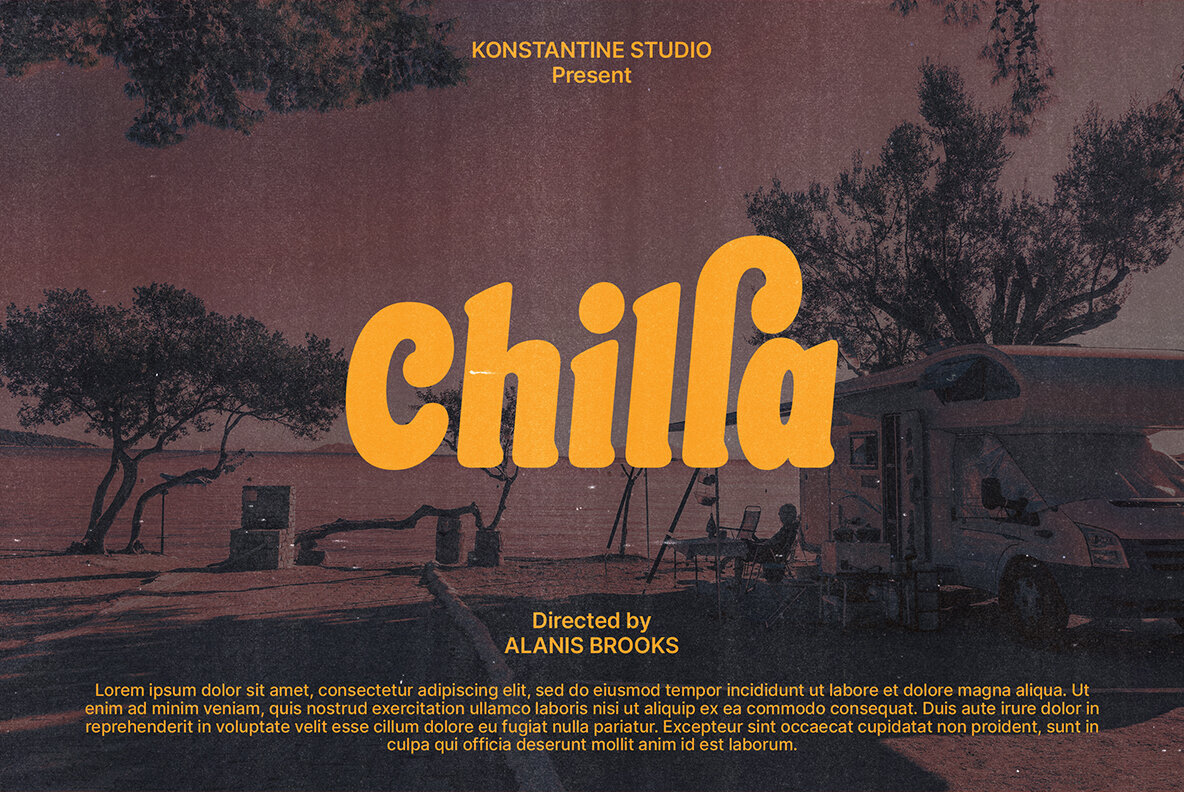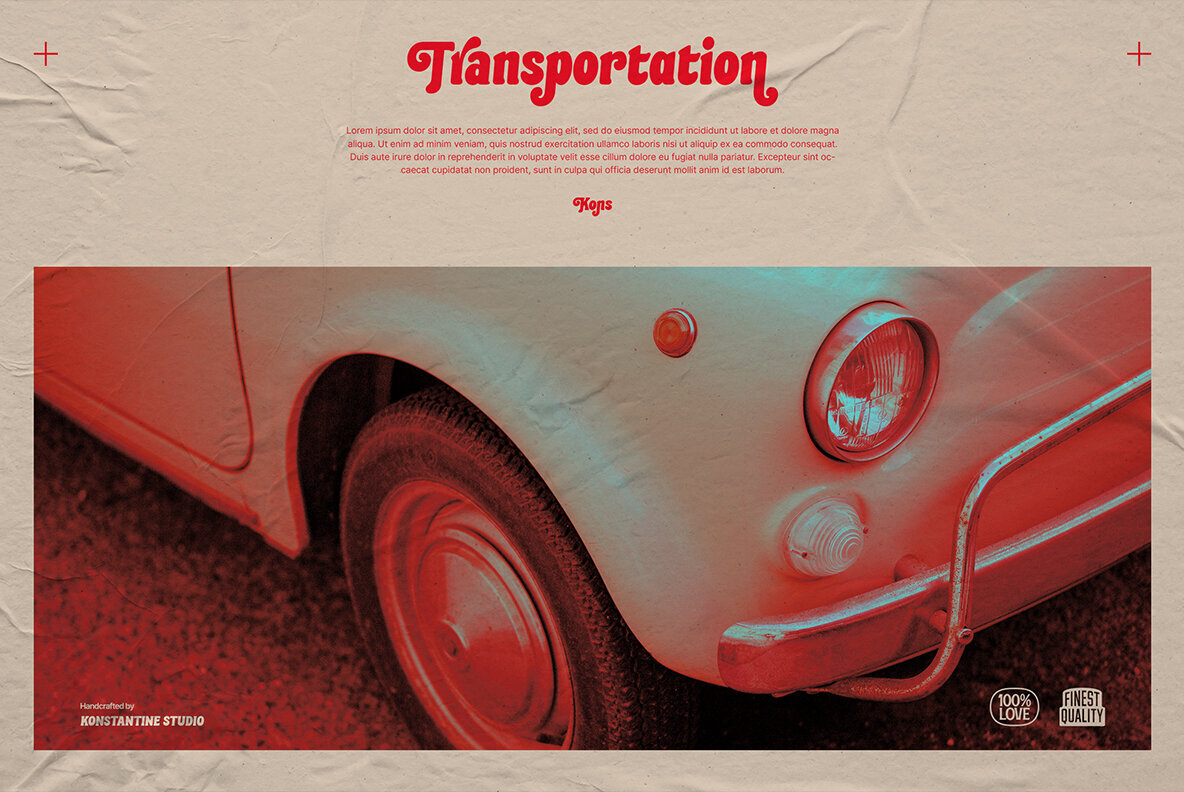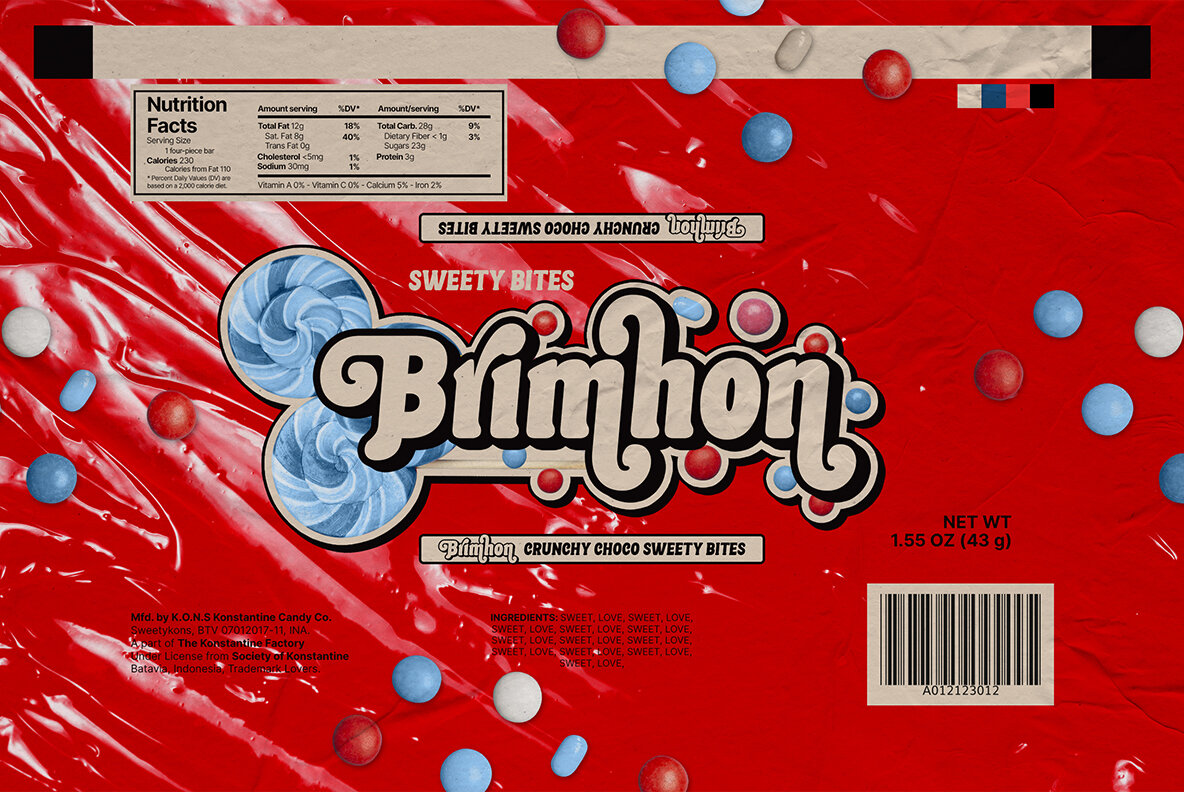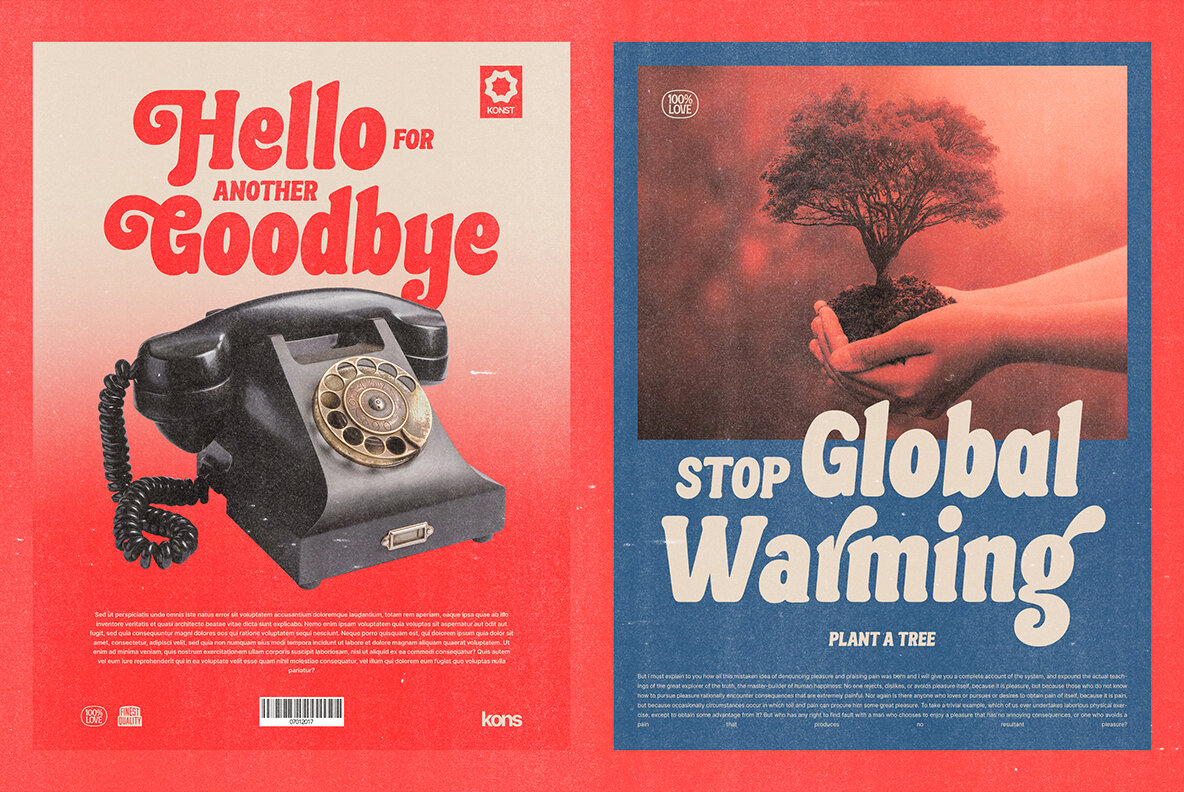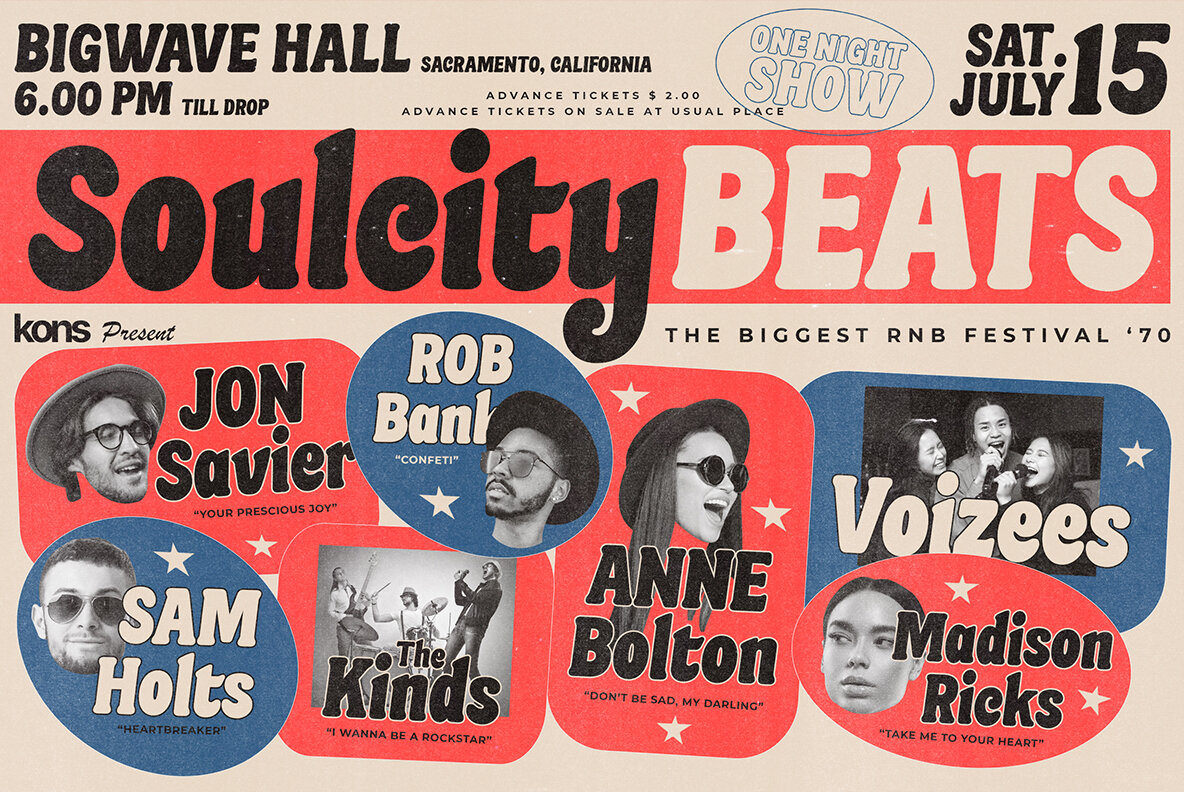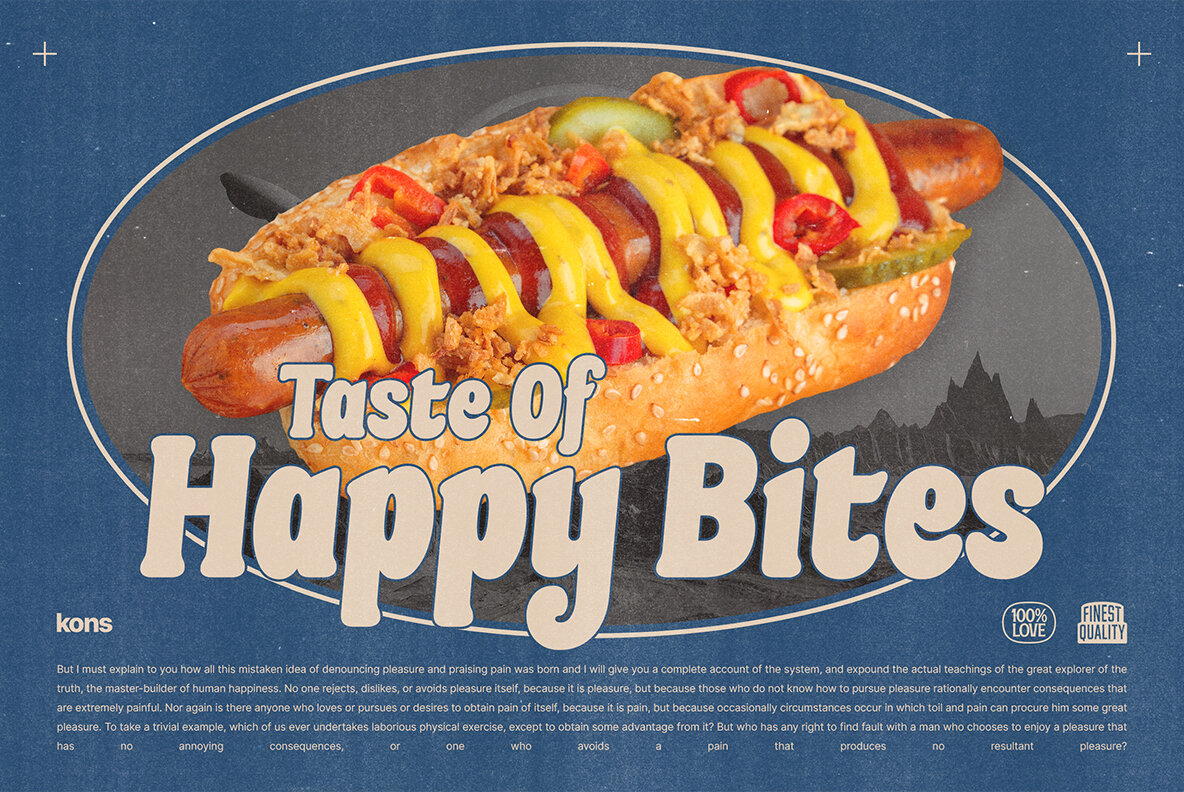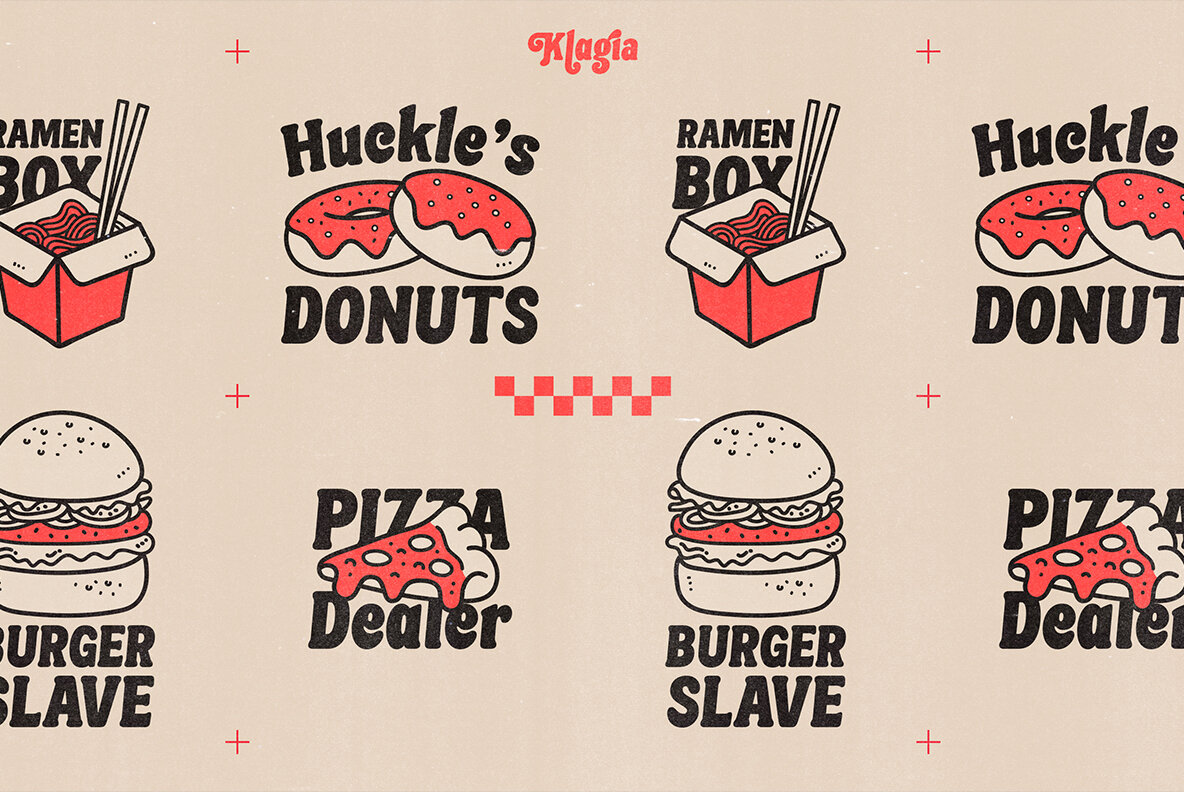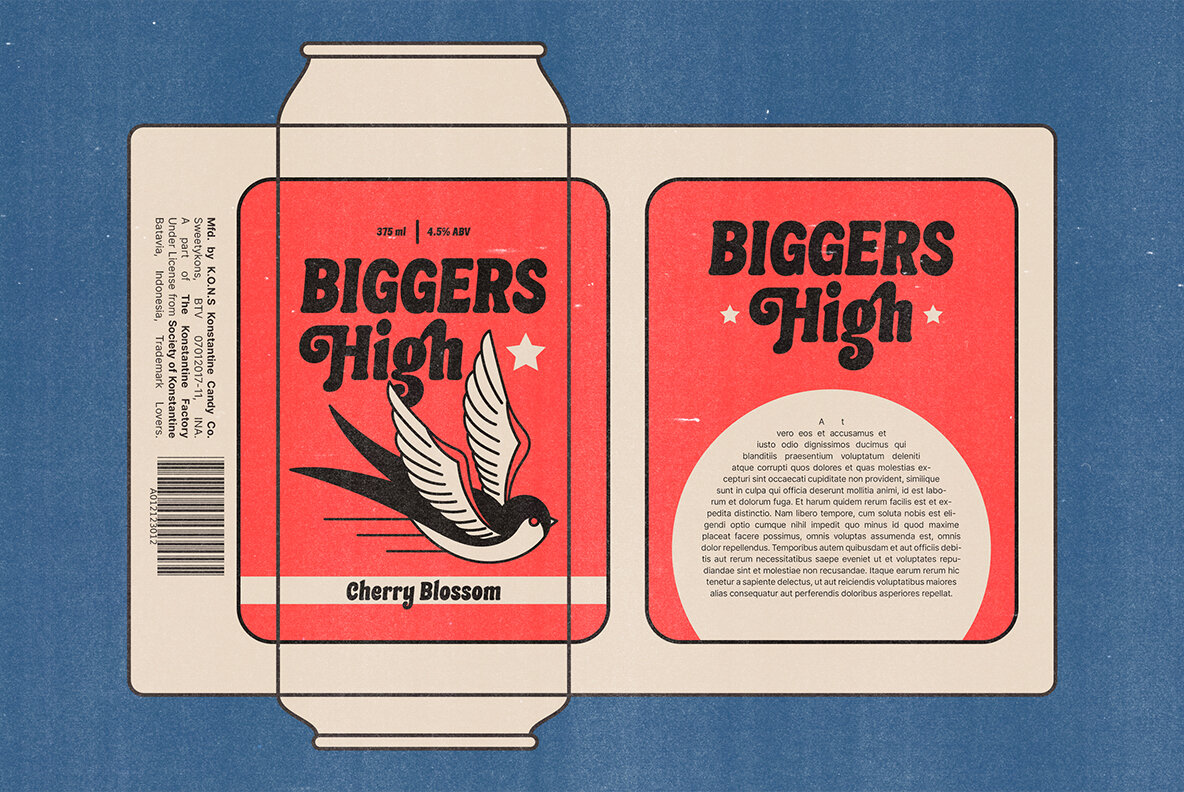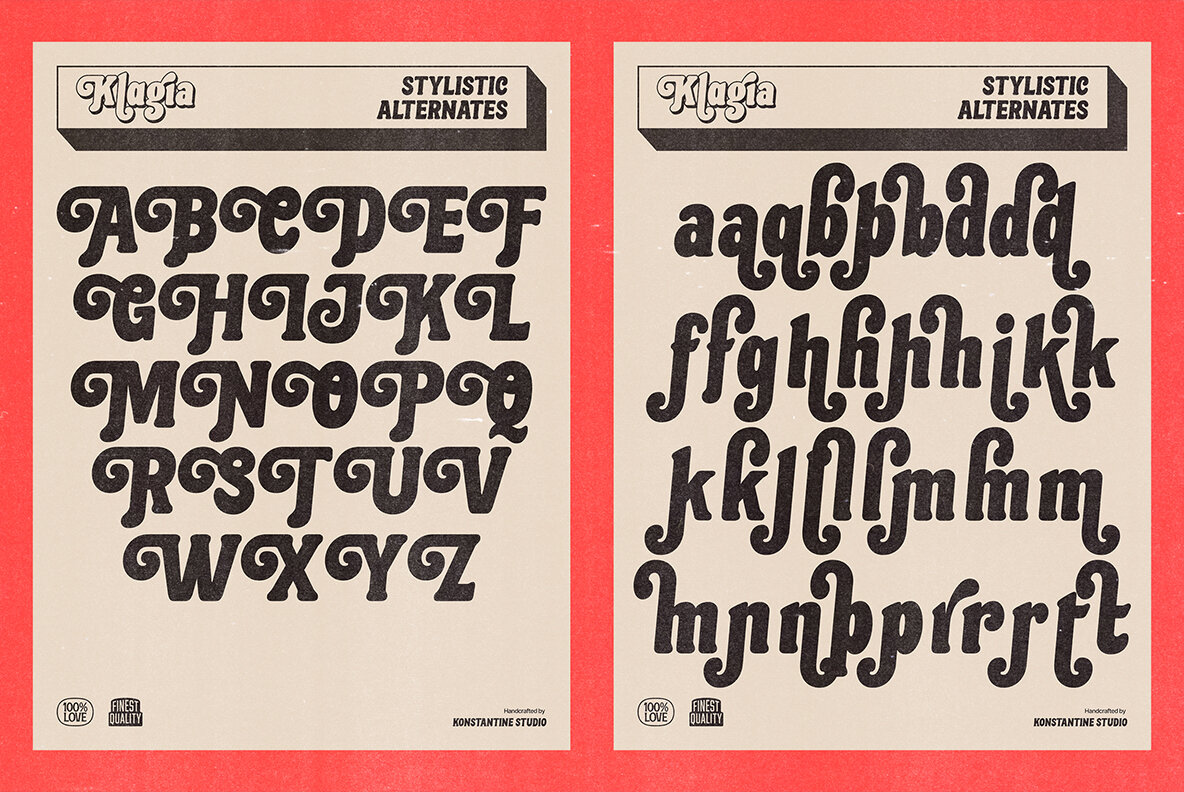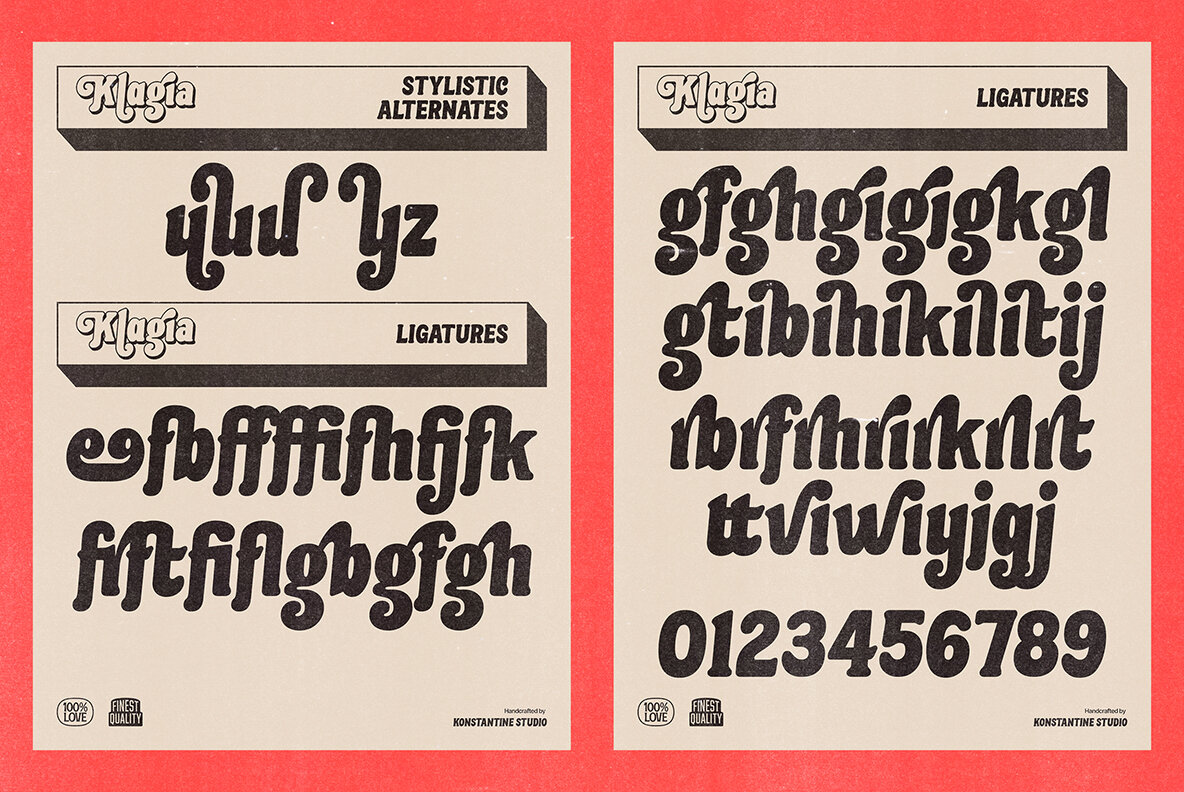
Klagia Font
Klagia Regular
Klagia is a font that brings back memories of the advertising media from decades ago. It has an attitude to it with its bold, loud forms and style but still manages to be stylish.